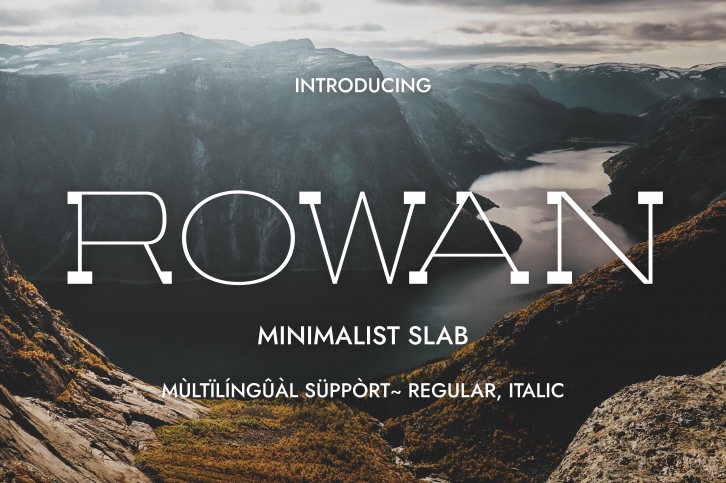
Rowan is a minimalist, elegant, and luxurious slab serif typeface. Its amazing glyph construction renders it a valid choice when it comes to designing elegant themes that require some particular touches. It is suitable to be used in headings and body texts. It can awesomely be used in packaging design, perfume design, cosmetics design, web design, magazine covers, etc. Add this font to your favorite creations, and notice how many amazing results can be easily obtained.